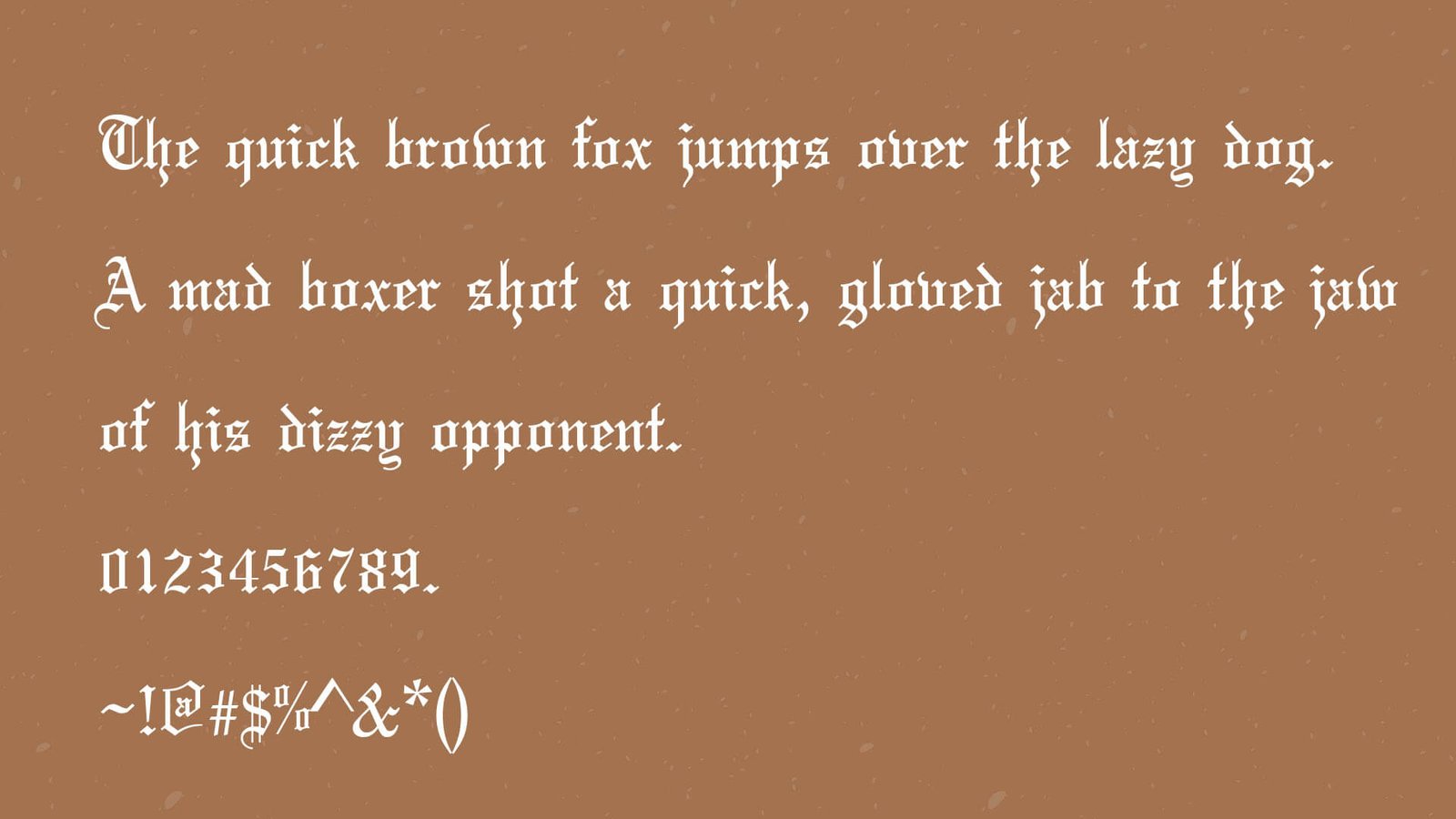
Olde English Font is a fantastic and classic tattoo style and Calligraphy font created by Dieter Steffmann. Also known as a blackletter font, it is perfect for personal writing.
The font’s family contains amazing texture style and design. This font is designed based on texture that is easier readable from a distance. The font is superb perfect using for making amazing documents and even for professional CV Writing as well documentation purposes.
This font can use as a cover for your letter design or attractive Logo designs even that can use for your more designing project such as business cards, unique text styles.
| Name | Olde English |
| Designer | Dieter Steffmann |